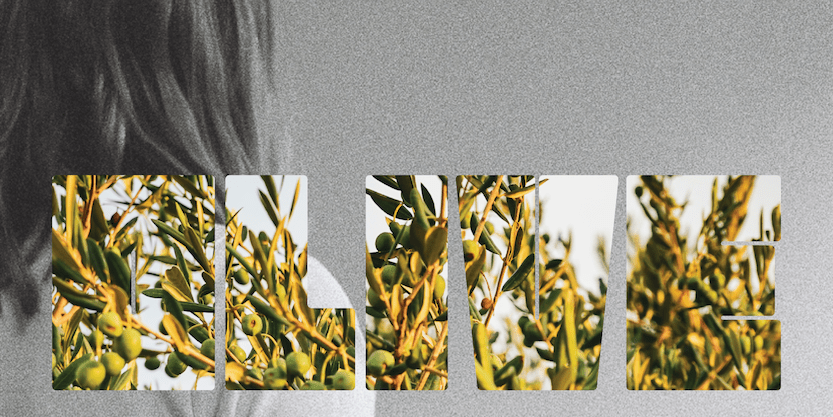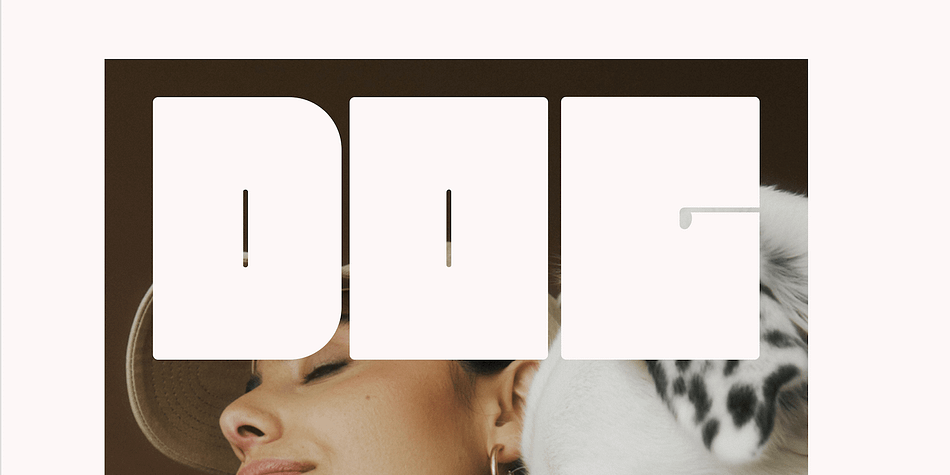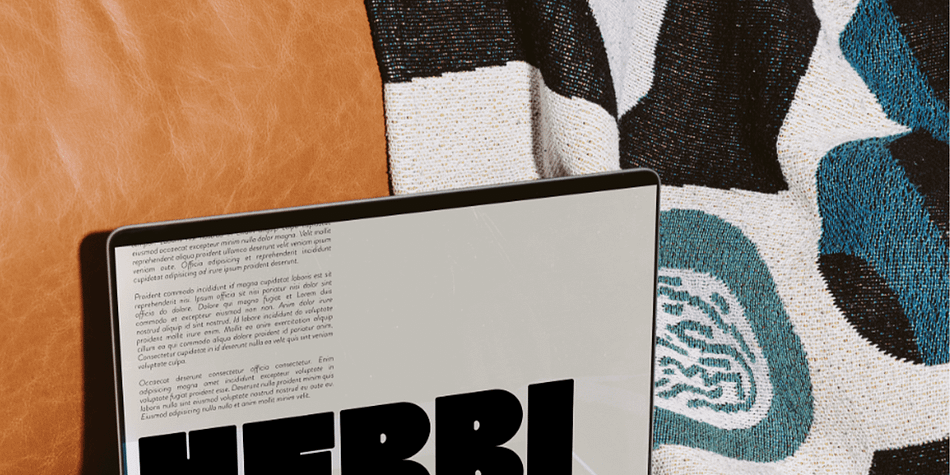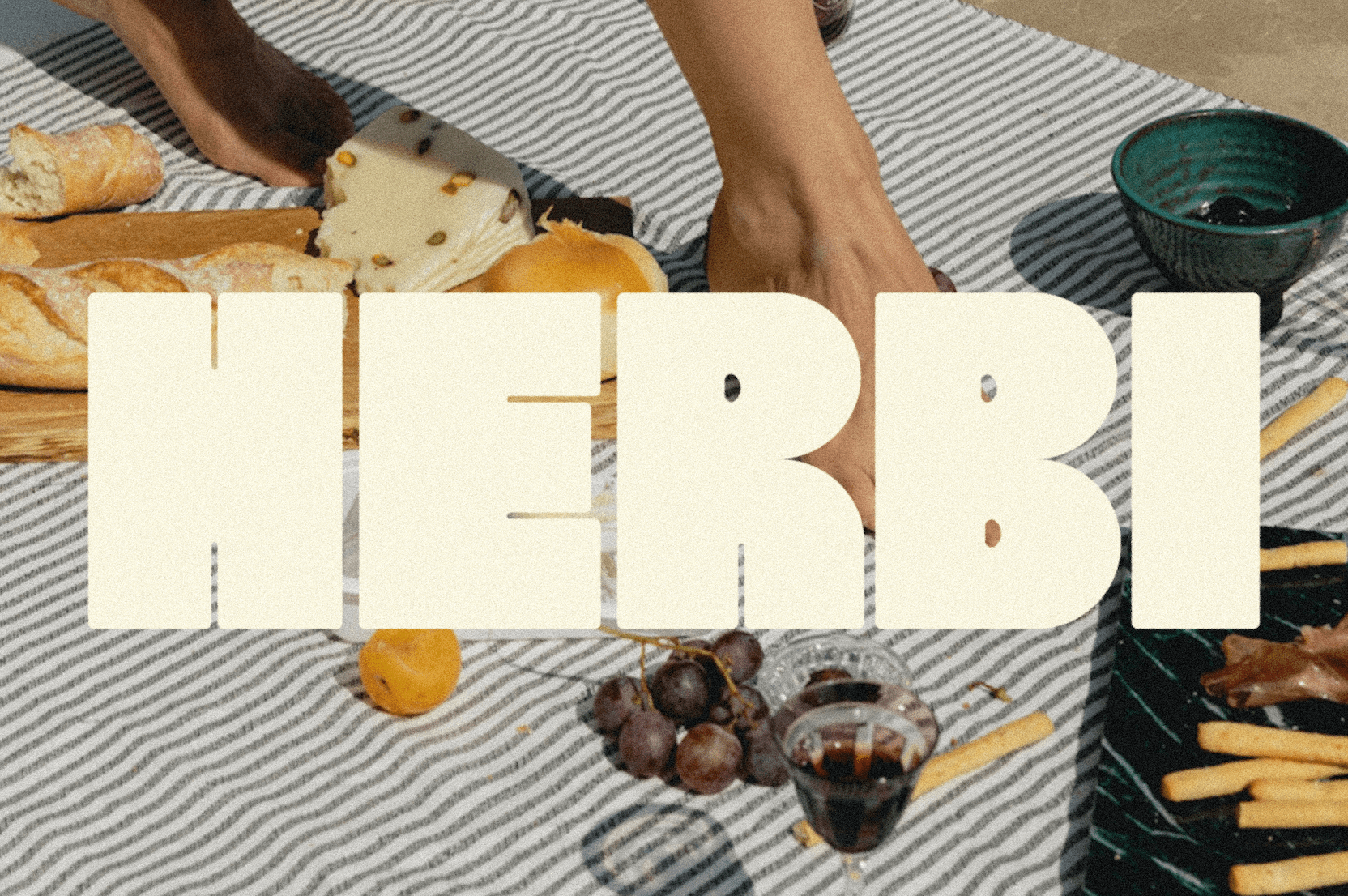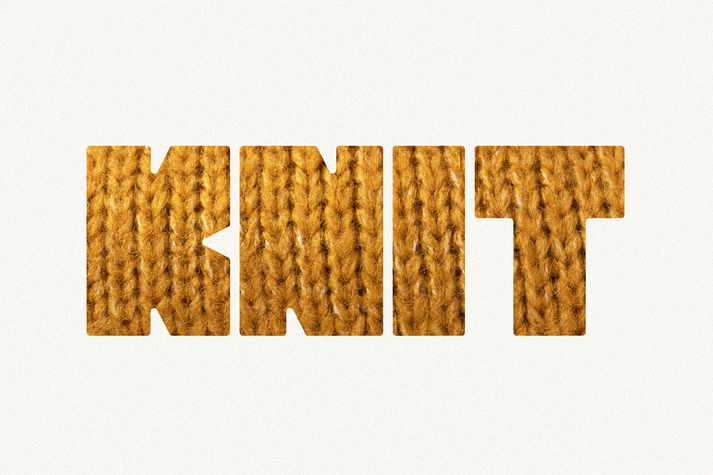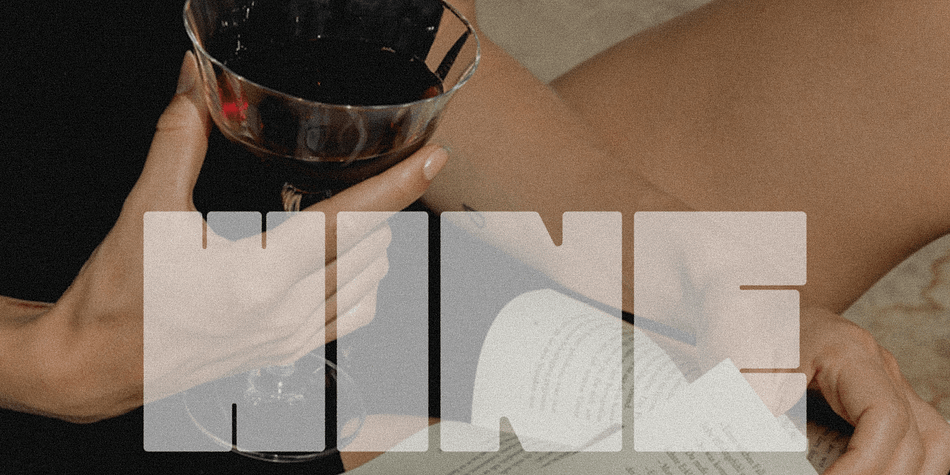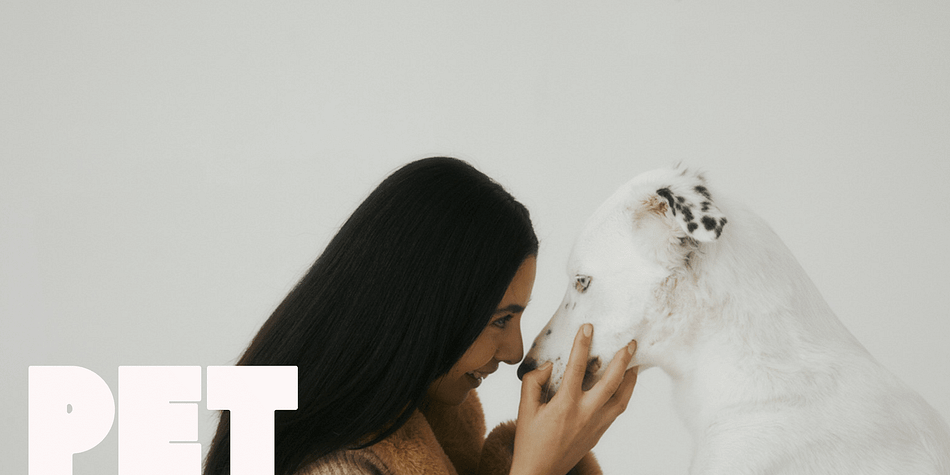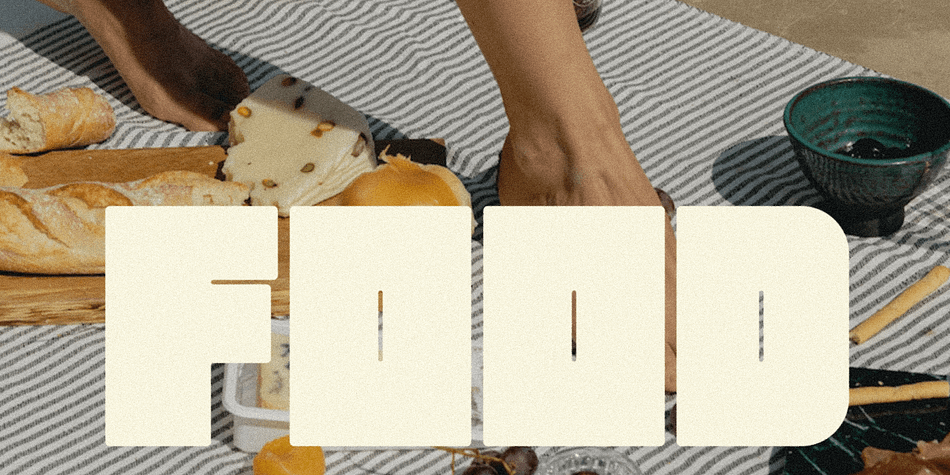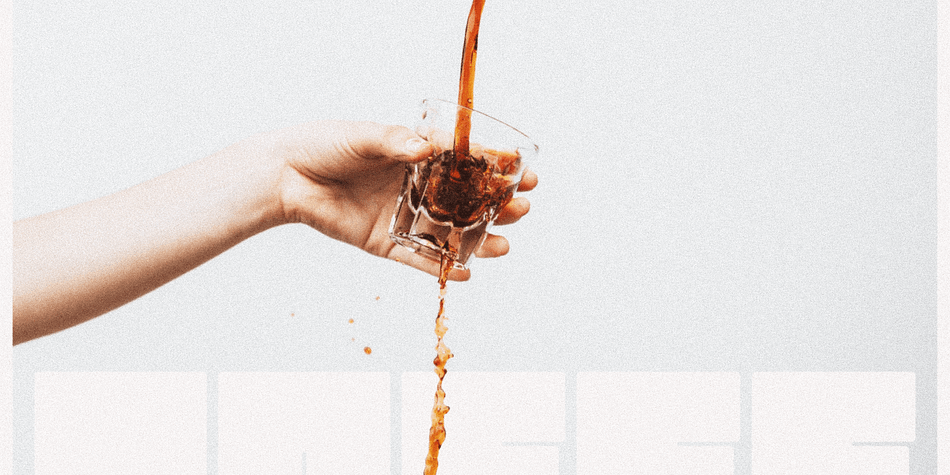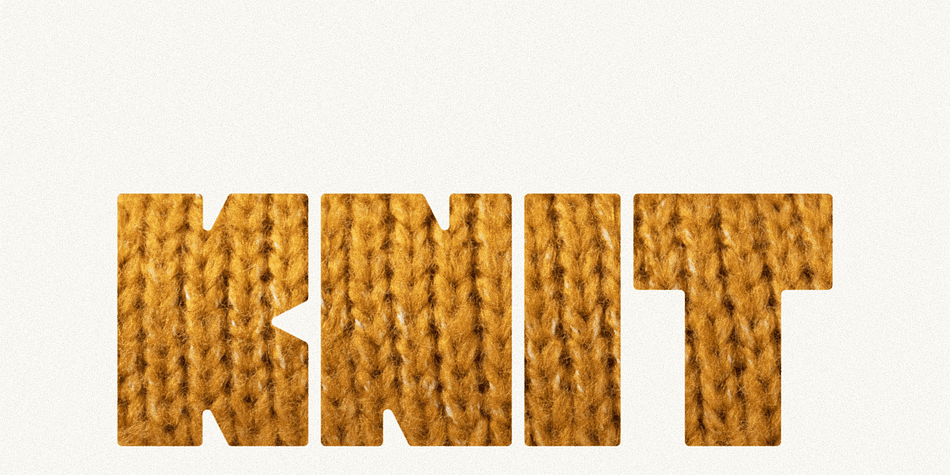
HERBI
Herbi is a display sans font family published by Loryn Ipsum.
HERBI | a chunky funky sans serif font
Meet HERBI, a chunky, funky, loud, and cutely proud kinda font. HERBI is playful, and bold while not being shouty with its soft corner. Its large real estate means it’s perfect for an image-fill effect while still being legible. It’s the kinda font that looks like you wanna give it a big hug.
Perfect for; logos, headings, packaging, modern brands, magazine headings, playful brands.